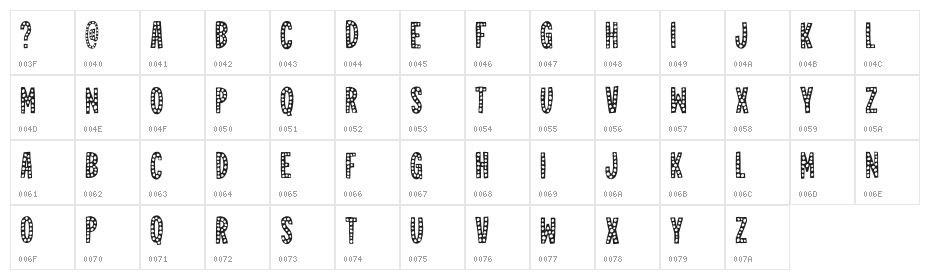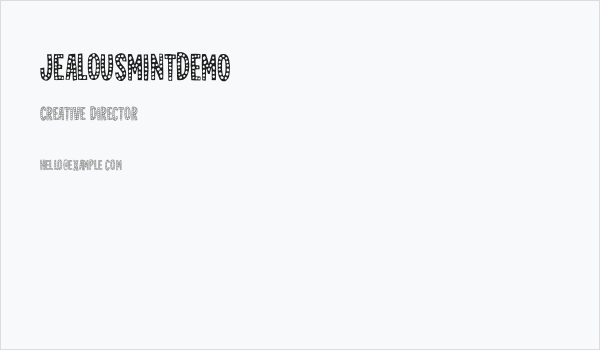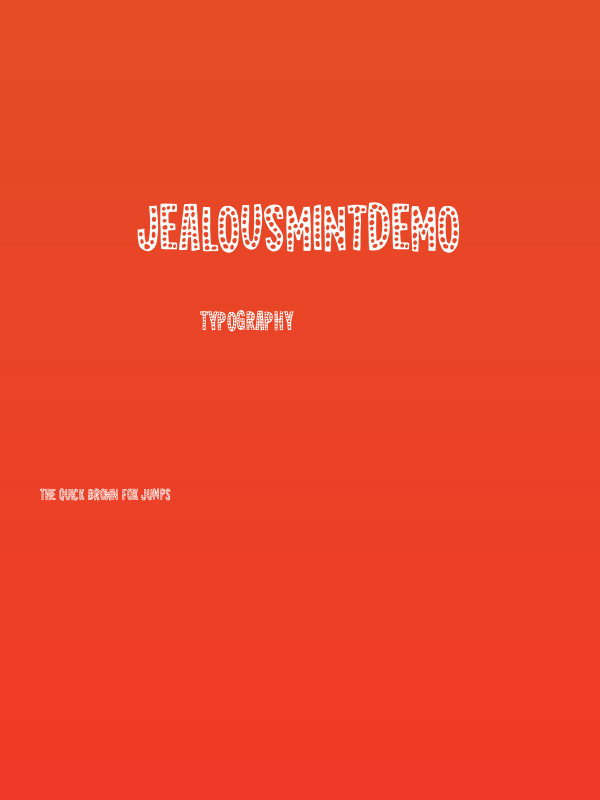
JealousMintDEMO Font
JealousMintDEMO Description
This font features a playful and bold design with a distinctive dotted pattern inside each character. The letters are uppercase and have a slightly irregular, hand-drawn appearance, giving them a whimsical and fun vibe. The dots within the letters add a unique texture, making the font stand out as decorative and eye-catching. The overall style is casual and artistic, suitable for creative projects that require a touch of personality and flair. The font's boldness ensures it remains legible while maintaining its decorative appeal.
| Overall Style | Playful, Whimsical, Decorative |
| Proposed Projects | Ideal for children's book covers, party invitations, playful branding, and creative posters. |